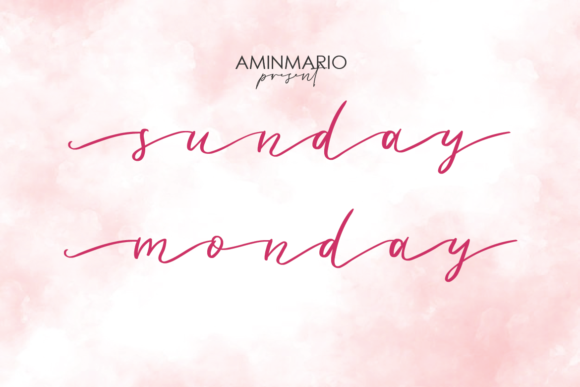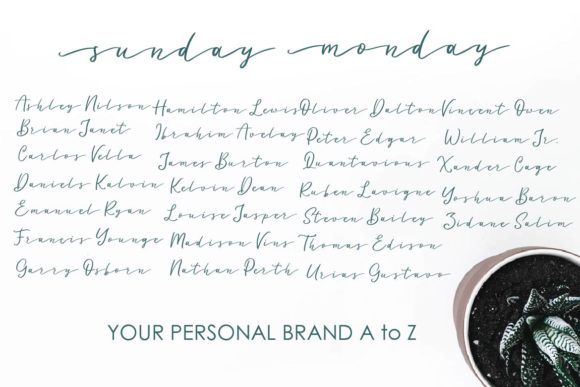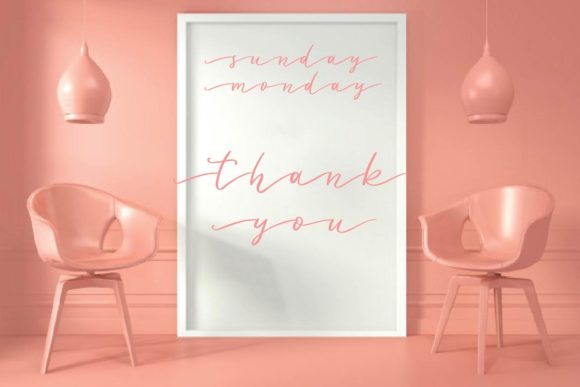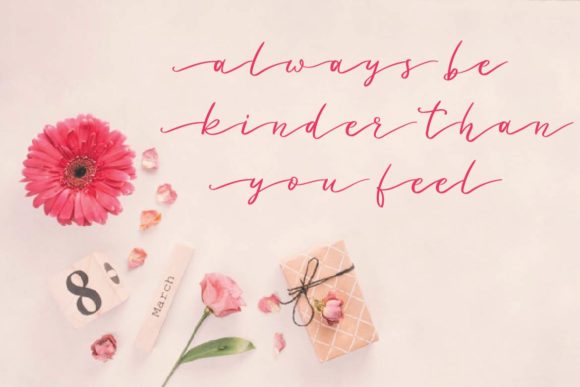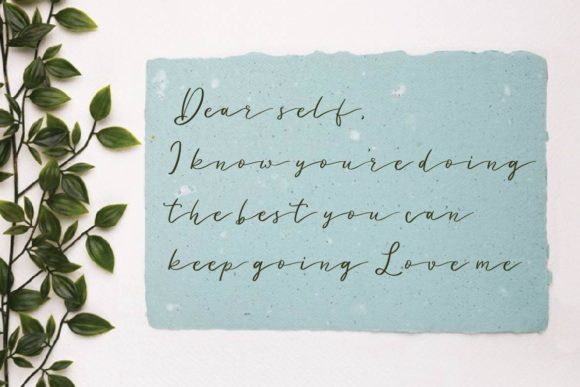
About Sunday Monday Font
Sunday Monday is a sweet, soft hand-lettered script font. Get inspired by its authentic feel and use it to create gorgeous wedding invitations, beautiful stationary art, eye-catching social media posts, and cute greeting cards.